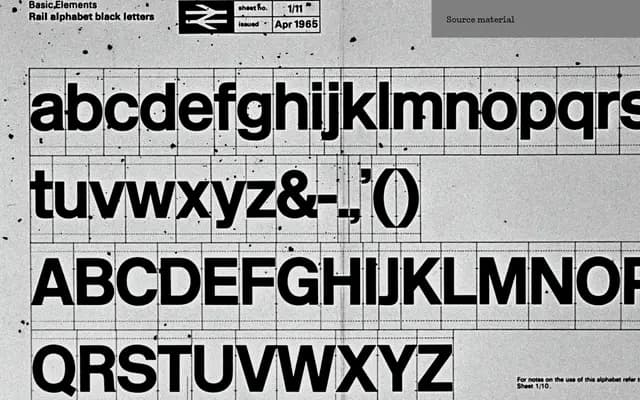
New Rail Alphabet
A2-Type · Margaret Calvert
A revival of Margaret Calvert's original Rail Alphabet, the humanist sans designed for British Rail and NHS hospital signage in the early 1960s.
Originally drawn by Calvert of Kinneir Calvert Associates for British public infrastructure, the typeface appeared first in National Health Service hospitals before rolling out across British Rail, Danish Rail and BAA airports. A2-Type's revival extends the family to six weights from Off White to Black, each with a matching italic, non-aligning numerals and a subset of Eastern European characters. A stencil variant is also available.
A revival of Margaret Calvert's original Rail Alphabet, itself a humanist sans designed for wayfinding legibility in British public infrastructure. The open apertures, moderate stroke contrast and letterform warmth place it firmly in the humanist sans tradition.